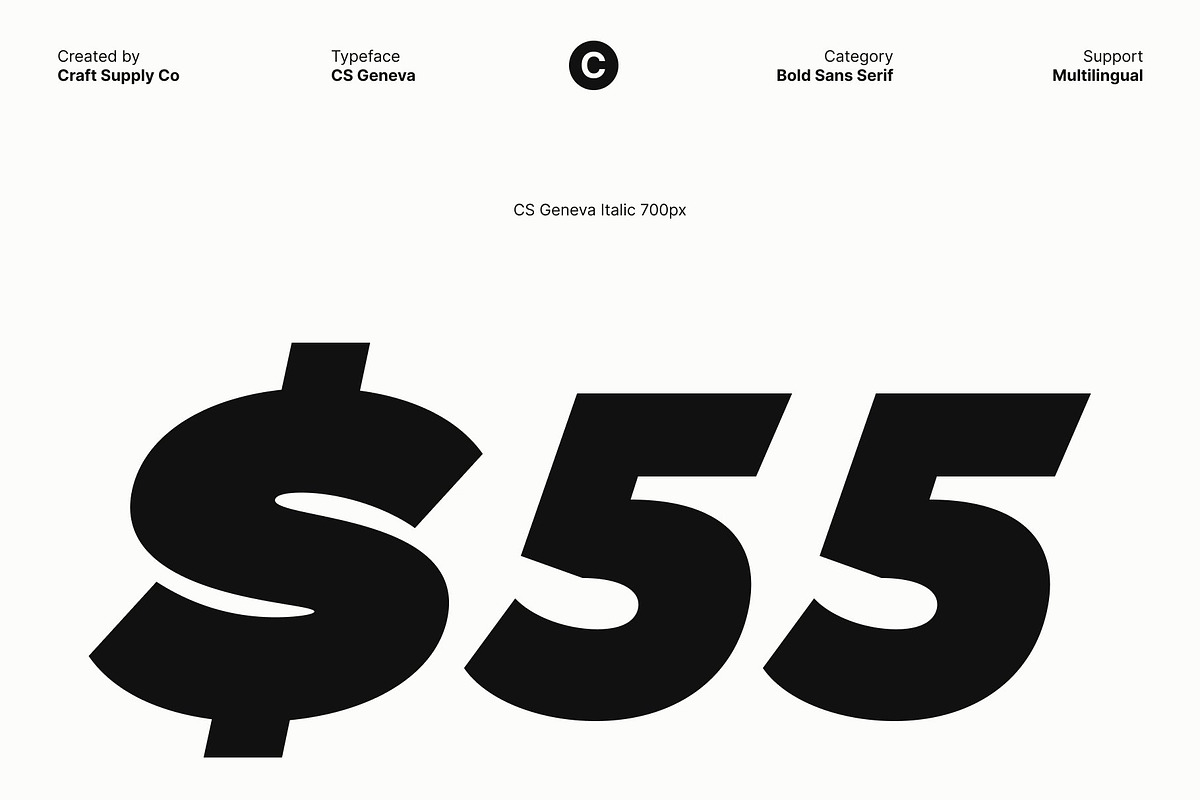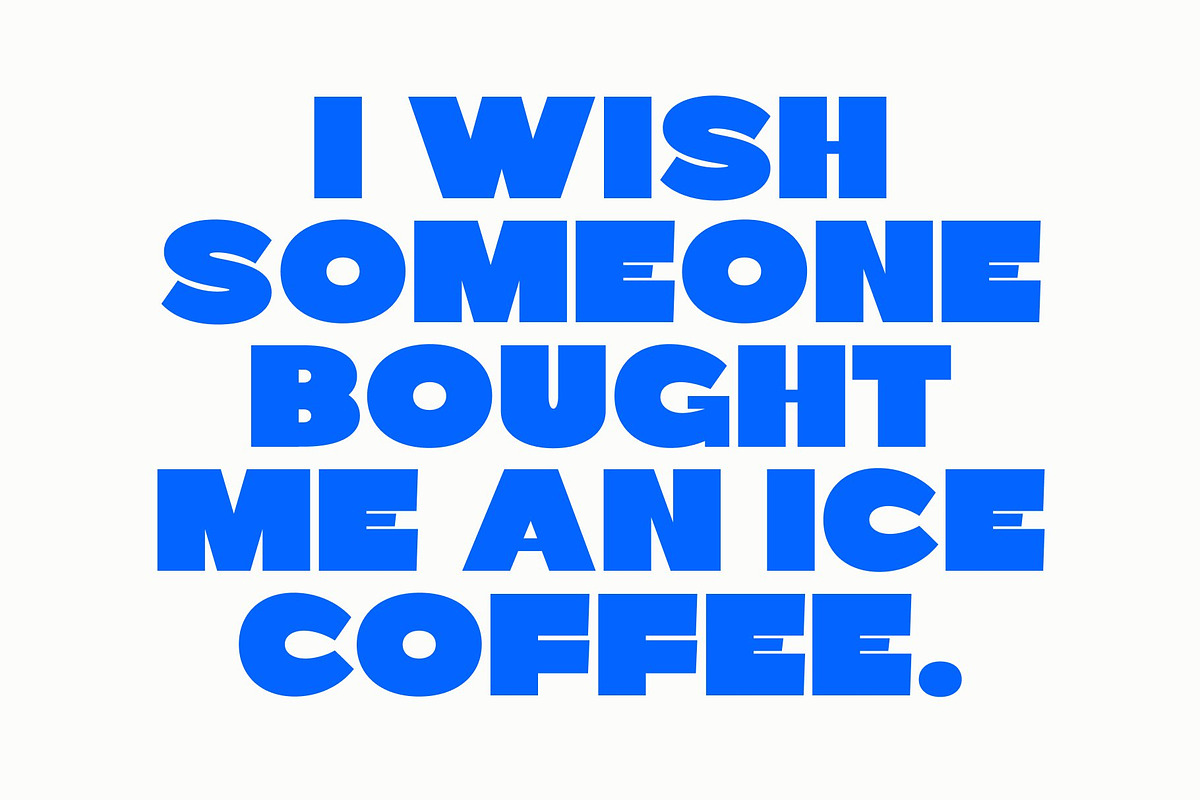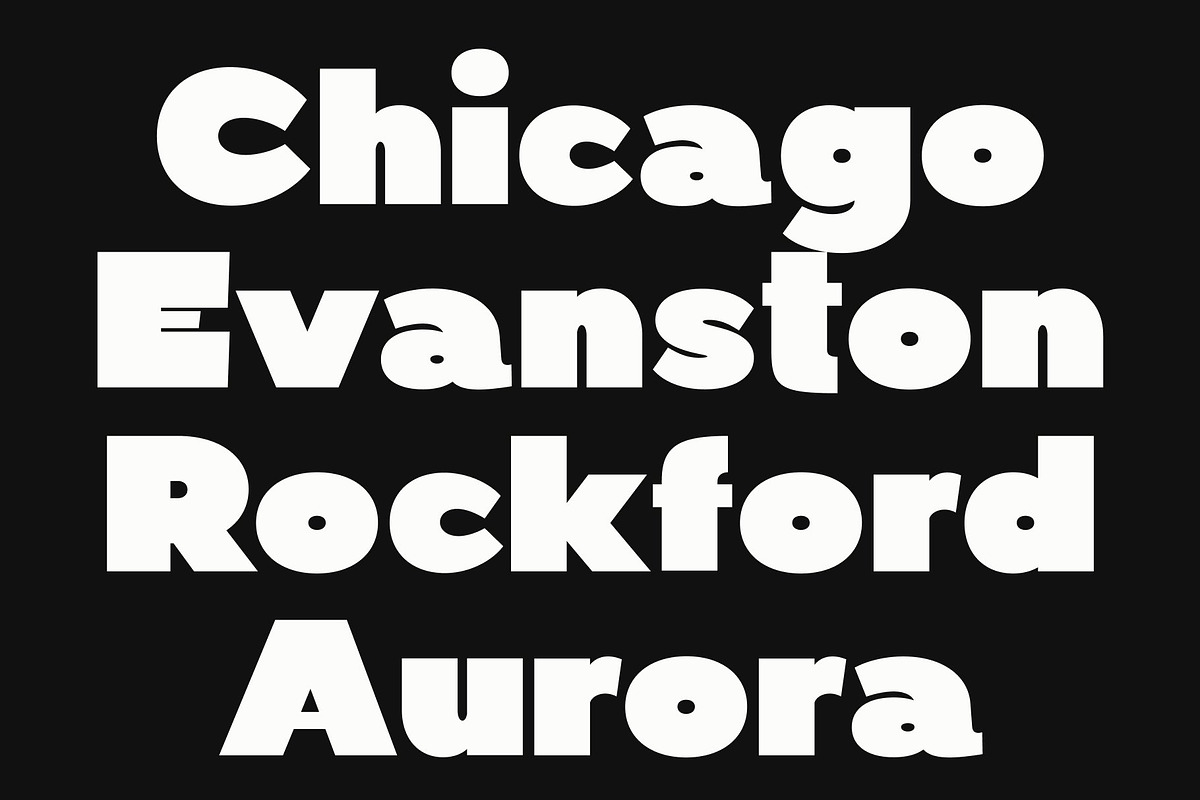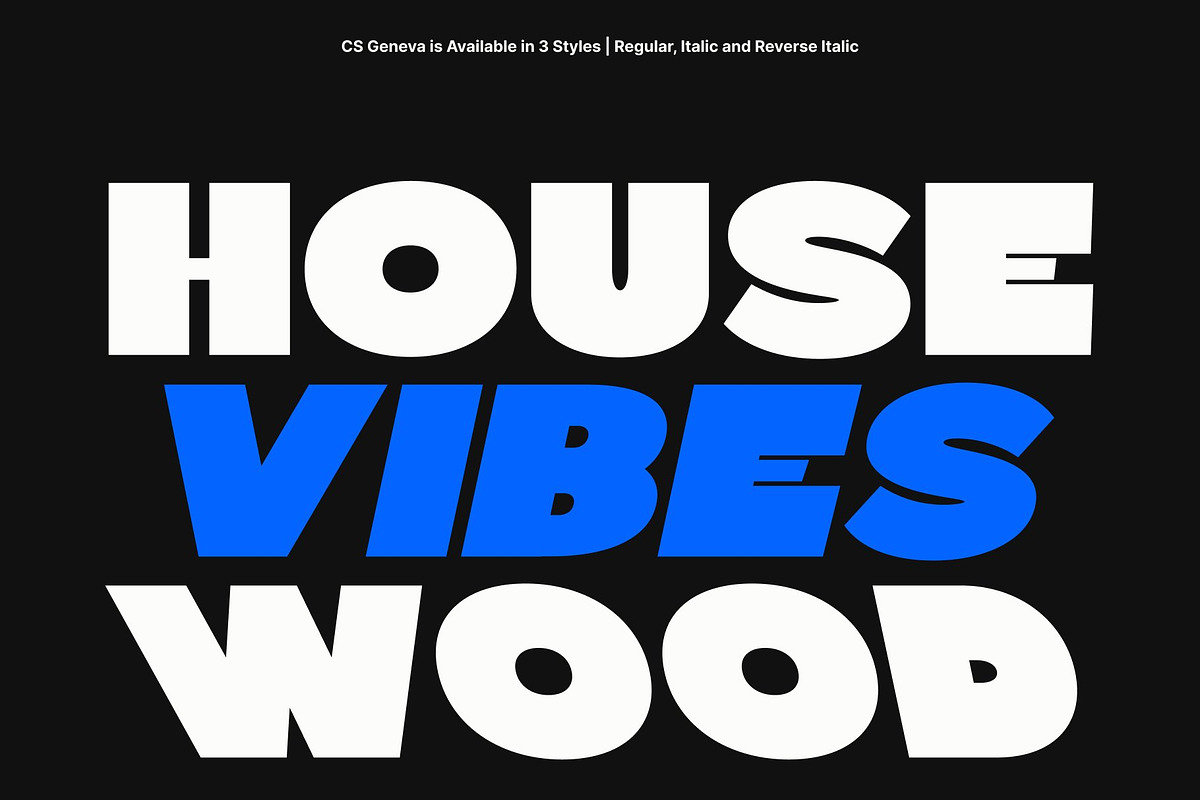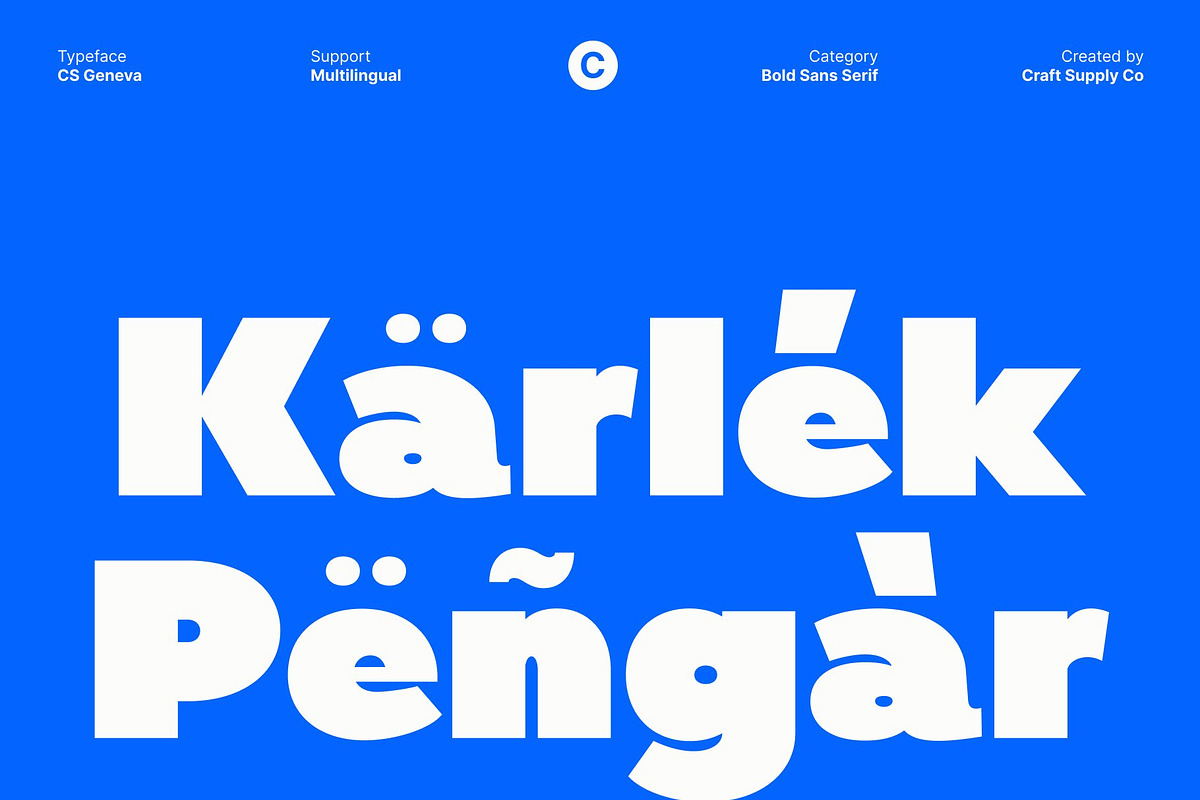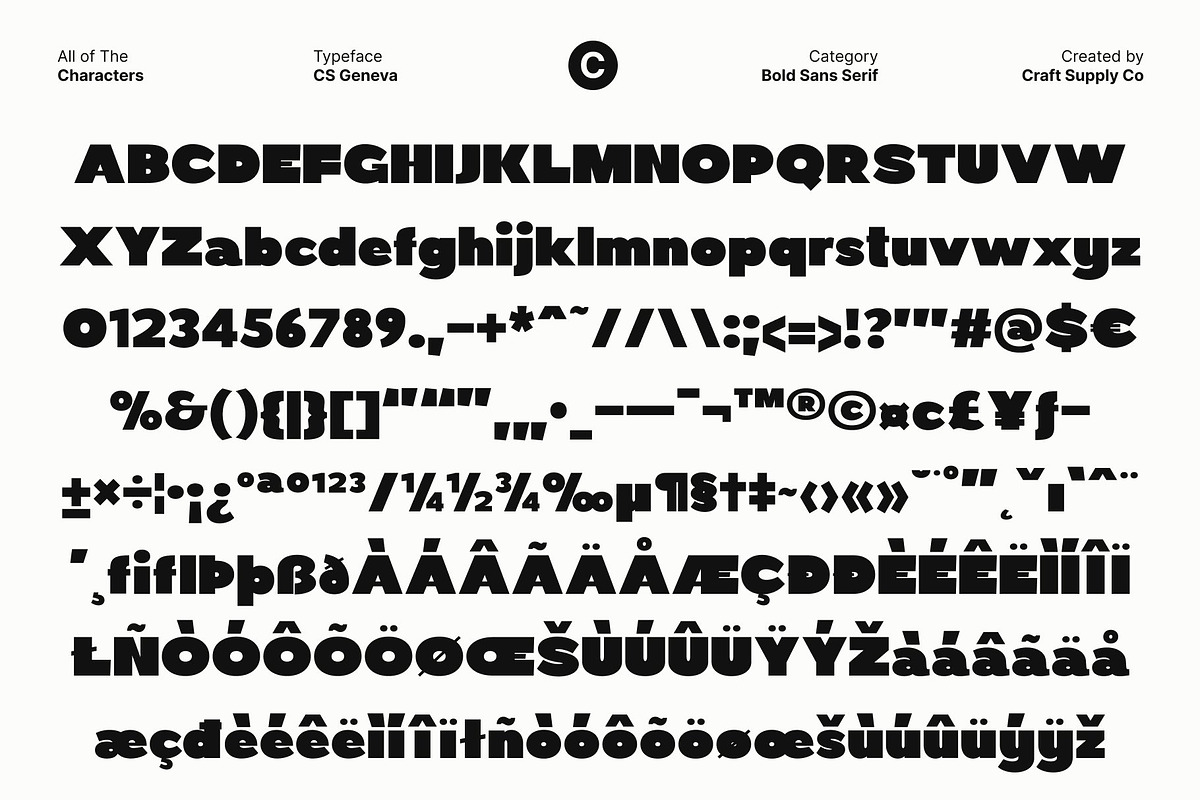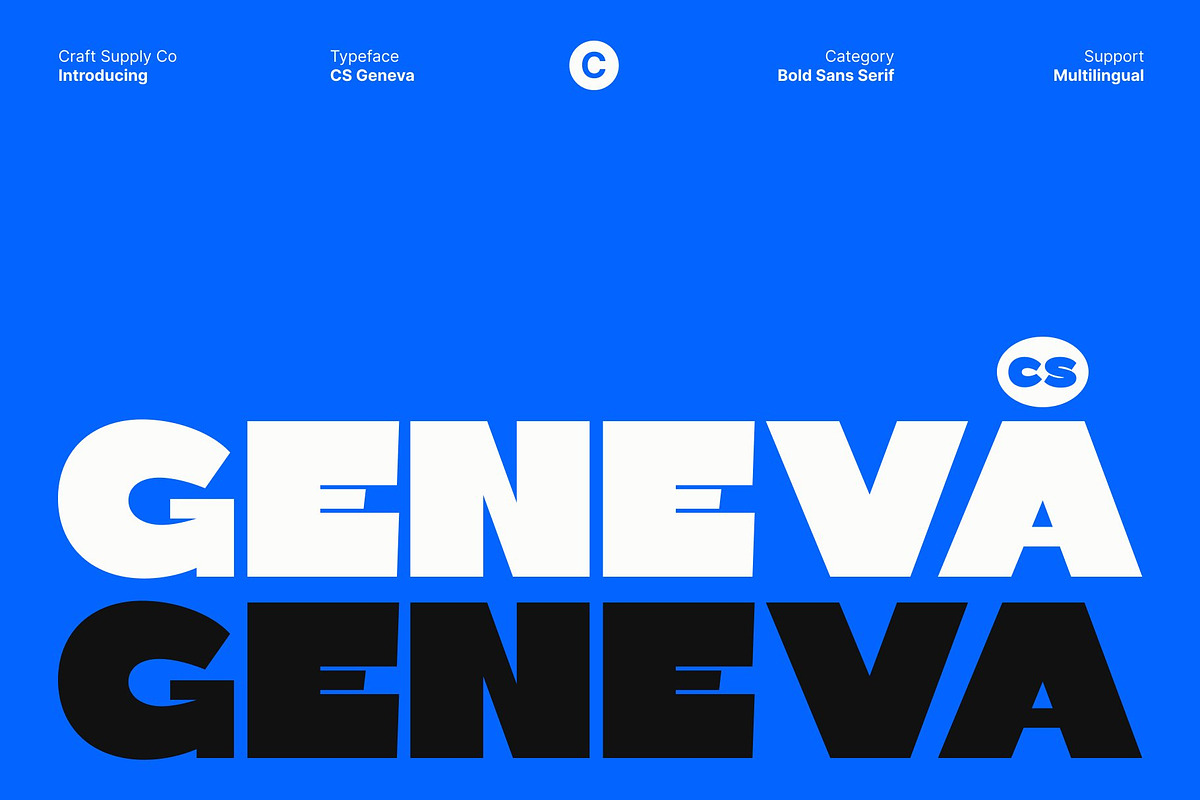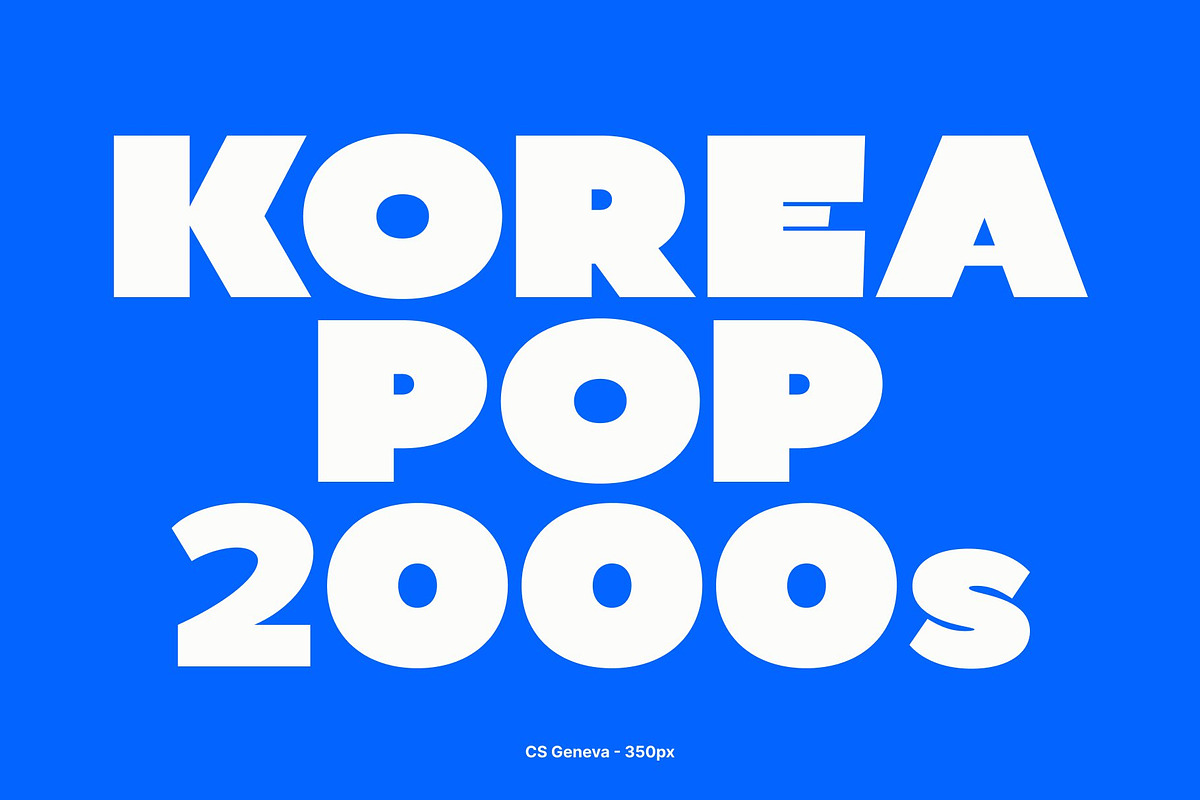
CS Geneva – Bold Sans Serif
CS Geneva – Bold Sans Serif with Cool, Modern Expression
Striking Shapes with Confident Presence This is a bold sans serif display font crafted to make an unmistakable statement. Built with striking modern shapes, thick composition, and clean geometric construction, it instantly captures attention in any visual space. Every letterform is designed with purpose strong, solid, and expressive resulting in a typeface that radiates confidence style.
Perfect for High Impact Headlines Bold, clear, and visually powerful, this font excels in headline applications. Its heavy weight and geometric precision ensure excellent readability even at large sizes, making it ideal for posters, banners, magazine titles, and website hero text.
A Strong Choice for Modern Branding For brands that want to appear cool, confident, and forward thinking, this font offers the perfect typographic foundation. Its expressive shapes give logos, packaging, and visual identities a decisive and polished feel. The thick and modern structure communicates strength and reliability, while the geometric styling adds sophistication.
Versatile for Contemporary Design Needs This font adapts beautifully to both print and digital projects. Its balanced proportions and bold silhouette make it a dependable choice for social media graphics, advertisements, editorial layouts, and more. With its cool, expressive look and modern attitude, ensures your designs stay fresh, eye-catching, and visually memorable across every platform.
- CS Geneva Regular
- CS Geneva Italic
- CS Geneva Reverse Italic